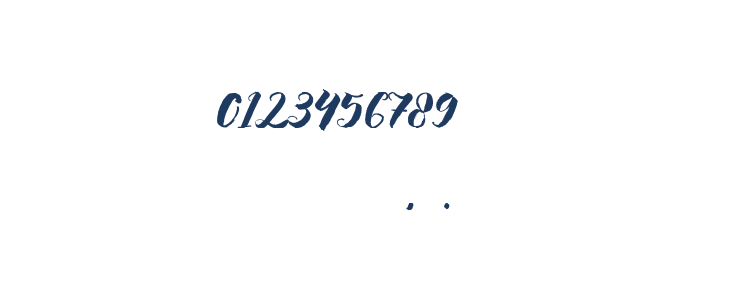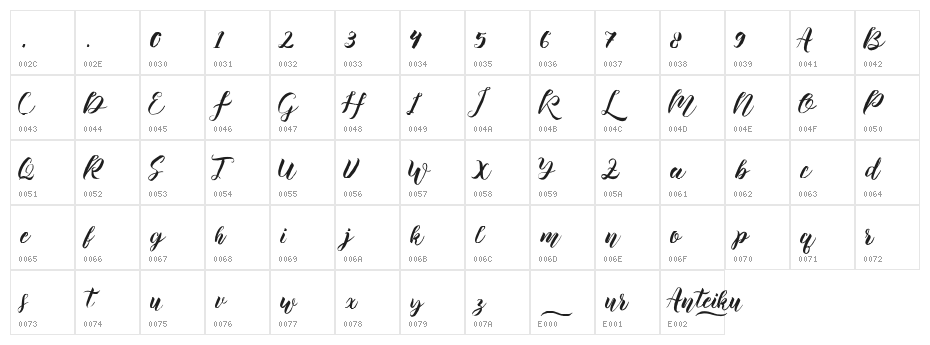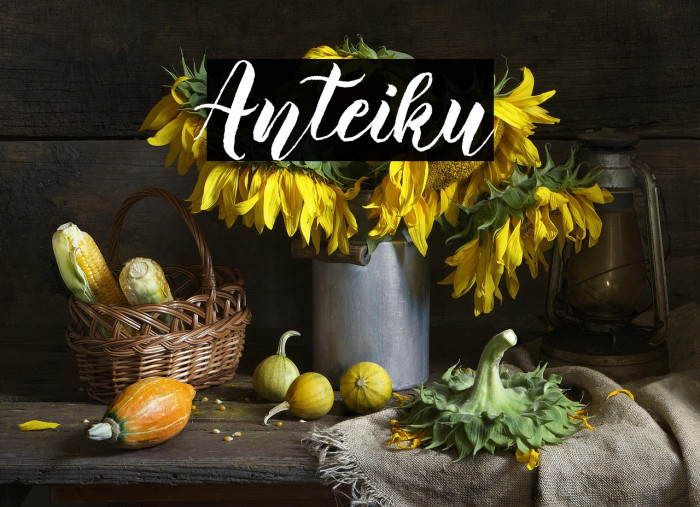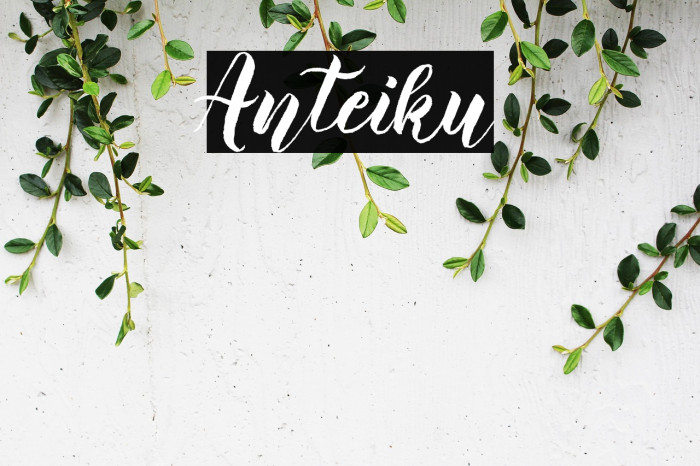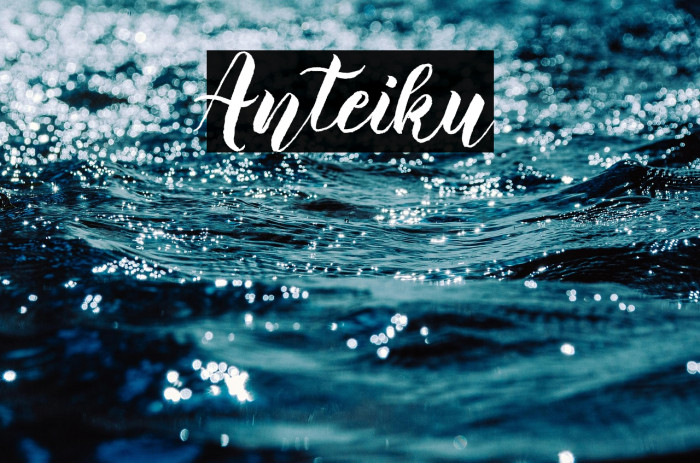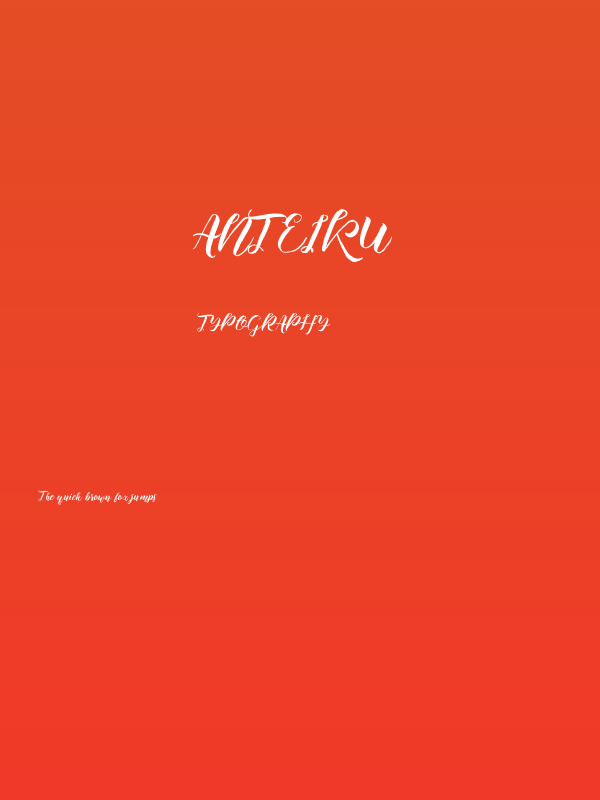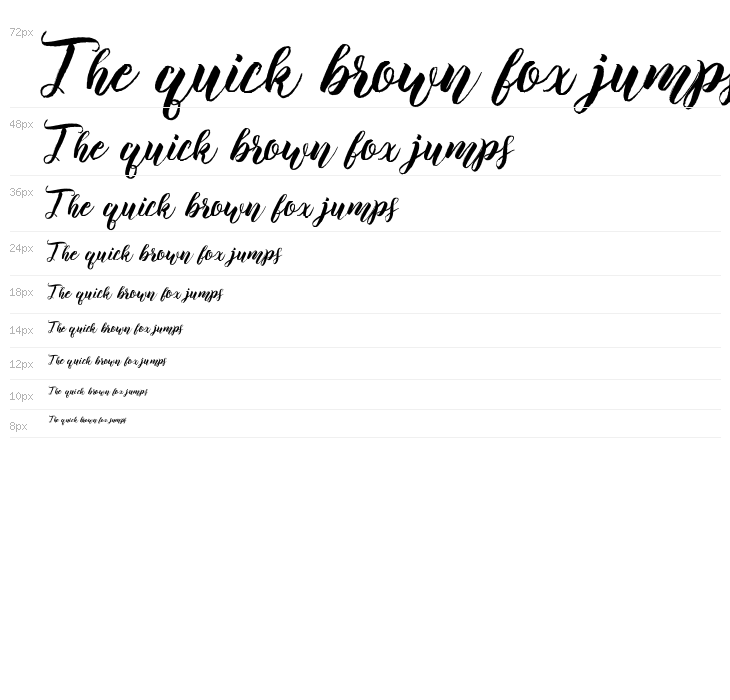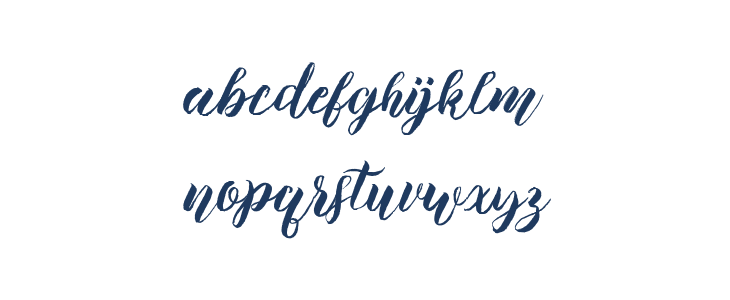
Anteiku Font
Anteiku Description
This font exhibits a flowing, cursive style with a modern twist, characterized by its elegant and artistic strokes. The uppercase letters are bold and expressive, with sweeping curves and flourishes that give a sense of movement and grace. The lowercase letters maintain a consistent style, complementing the uppercase with their own subtle flourishes and smooth connections. The numerals are distinct and maintain the same artistic flair, ensuring readability while adding a touch of sophistication. The special characters are thoughtfully designed to match the overall aesthetic, making this font versatile for various design needs.
| Use Case | Logos, Invitations, Posters |
| Proposed Projects | Ideal for wedding invitations, branding projects, elegant logos, and artistic posters. |